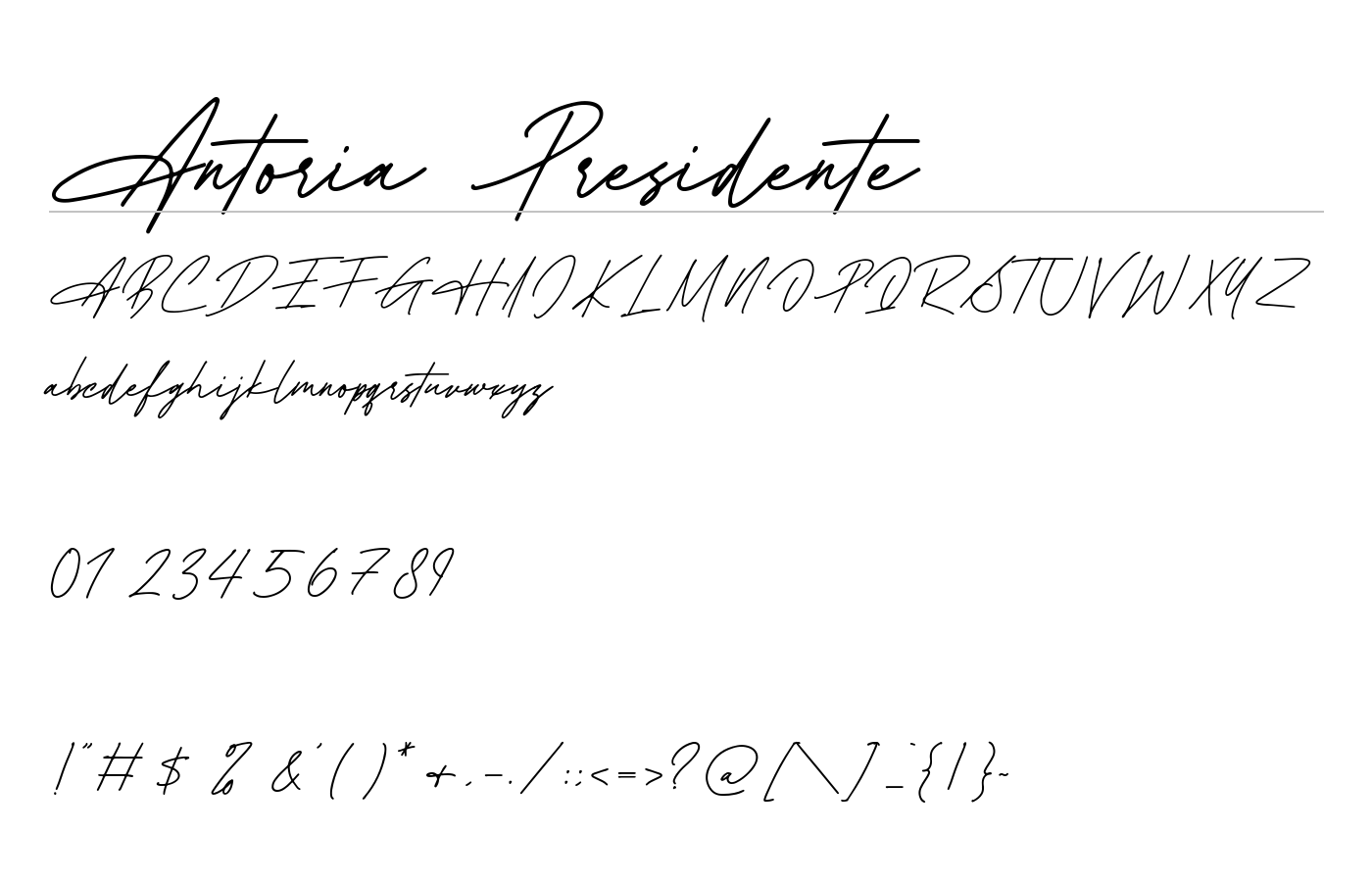
Antoria Presidente is a delicate and elegant script font with a handwritten feel, characterized by its fine, smooth strokes and natural flow. Its light weight and airy structure make it perfect for sophisticated branding, invitations, and stylish headlines where a touch of grace and refinement is desired. This font shines in luxury and fashion contexts, bringing a modern yet personal touch to design projects.
Antoria Presidente Font
About Antoria Presidente Font